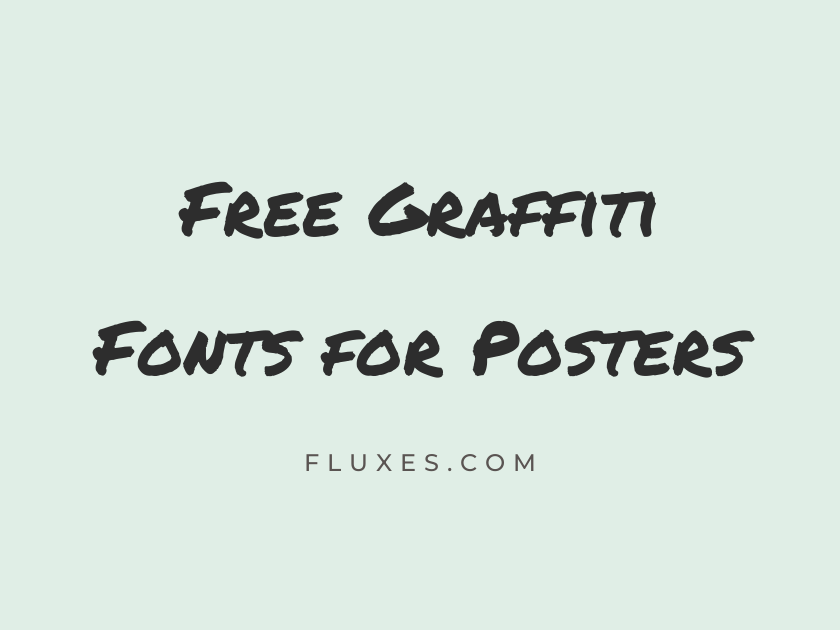
54 Best Free Graffiti Fonts for Posters
Graffiti has its own visual language: dripping spray paint, thick marker tags, chunky bubble letters, stenciled warnings, and the occasional gothic tag lifted straight off a train car. Translating that energy into a usable poster font is not simple, since most graffiti lettering is hand-cut or freehand rather than typeset. Fortunately, Google Fonts has built up a genuinely deep bench of free graffiti fonts, spray paint fonts, and urban display faces that capture that street art attitude while staying legible enough for headlines, flyers, and gig posters.
What follows is a wide sweep of options, from authentic marker scrawls to stenciled warehouse type to neon-tube signage, so you can match the exact flavor of urban grit your poster needs.
1. Permanent Marker
Tag the wall before sunrise
This is the font most people picture first when they hear “graffiti font,” and for good reason. Its thick, slightly uneven marker strokes look genuinely hand-drawn rather than digitally faked, which makes it a dependable workhorse for flyers, sale signs, and anything that needs a scrawled, urgent voice.
It holds up surprisingly well at small sizes for a marker face, though it shines biggest as a headline.
2. Rock Salt
Fresh paint drips down the alley
Scratchy and uneven in a way that feels like it was drawn with a dying ballpoint on a brick wall, Rock Salt brings a rawer, less polished energy than Permanent Marker. It works best in short bursts, a word or two, since longer lines start to feel cramped.
3. Nothing You Could Do
Scrawled fast under a flickering streetlight
Nothing You Could Do
Loose and looping, this one reads like a tag scrawled in a hurry. Save it for accent text or a signature-style flourish rather than body copy, where its irregular baseline can get tiring to read.
4. Covered By Your Grace
Handwritten tags cover the underpass wall
Covered By Your Grace
Softer and rounder than most tag fonts, Covered By Your Grace feels less like spray paint and more like a paint marker on cardboard. It pairs nicely with a heavier display font for contrast.
5. Sriracha
Bold marker strokes claim the corner
Thick, confident, and slightly playful, Sriracha reads like a marker tag with good handwriting. It is one of the more legible options on this list, which makes it useful for posters that need graffiti flavor without sacrificing readability.
6. Kaushan Script
Signature style on a subway car
Kaushan Script leans closer to brush lettering than street tagging, but its confident, swooping strokes give it a signature-tag quality that works well for event branding with a graffiti edge. Use it for a name, date, or short phrase rather than a full sentence.
7. Yellowtail
Loops and swashes across brick walls
Smooth, connected, and full of movement, Yellowtail feels more like a tagger’s autograph than a spray-can piece. It reads best in a single accent line, layered over a bolder background font.
8. Bangers
POW! Street art hits the block
Straight out of comic-book lettering, Bangers brings the loud, chunky, slightly rough-edged energy of a stenciled street mural. It has become a go-to for punchy show posters and event flyers that want an urban, hand-cut feel without leaning on a script.
9. Boogaloo
Bounce back to the block party
Boogaloo’s rounded, slightly wobbly letterforms give it a retro block-party charm. It sits comfortably alongside graffiti-inspired designs that want warmth rather than aggression.
10. Luckiest Guy
Bubble letters bloom on the overpass
Fat, rounded, and instantly recognizable, Luckiest Guy is the closest thing on Google Fonts to classic graffiti bubble lettering. It is bold enough to anchor a poster title on its own and holds up well printed large.
11. Titan One
Chunky letters own the skate park
Titan One takes the bubble-letter idea and pushes it even chunkier and more inflated, almost like a piece painted with a fat cap. It reads loud from across a room, which makes it excellent for skate, sneaker, or street culture posters.
12. Modak
Puffy paint fills the whole mural
Originally cut for Devanagari-inspired display work, Modak’s puffed, glossy letterforms translate surprisingly well into graffiti-adjacent poster design. Its rounded weight gives it a candy-coated, spray-filled look that pairs nicely with bright, saturated color schemes.
13. Shrikhand
Thick brush ink for loud posters
Shrikhand is dense, inky, and a little wild at the edges, giving it a hand-painted sign quality. It works best as a short, shouty headline rather than anything requiring fine detail.
14. Passion One
Big rounded type for concert flyers
Rounded and heavy without tipping into cartoonish, Passion One is a safe bet when a poster needs graffiti-adjacent boldness but still has to feel like a real event flyer. It is legible at a distance and holds its shape even when printed on rough paper stock.
15. Chewy
Playful bubbles bounce off the wall
Chewy is friendlier and softer than most bubble-letter graffiti fonts, making it a good fit for community mural events, youth programs, or block party flyers that want a graffiti wink without the edge.
16. Rammetto One
Inflated letters for block party flyers
Rammetto One’s rounded, slightly puffed strokes give it a balloon-letter feel reminiscent of old-school bubble graffiti pieces. It works best set large and short.
17. Kablammo
Bold shout for underground show posters
Kablammo
A variable font with a springy, elastic quality, Kablammo can be dialed from a mellow bounce to a full shout depending on the axis settings. It suits gig posters and zine covers that want a comic-graffiti hybrid look.
18. Bigshot One
Three dimensional letters pop off walls
Bigshot One
Bigshot One layers a dimensional shadow onto chunky letterforms, mimicking the extruded, 3D-piece look graffiti writers spend hours building with cans. It is a strong choice for a title that needs to look like it is physically lifting off the wall.
19. Ranchers
Weathered type for warehouse show flyers
Ranchers
Ranchers has a distressed, slightly worn edge that reads like paint applied to a rough surface. It suits warehouse party flyers, DIY show posters, and anything that wants a lived-in, urban texture.
20. Alfa Slab One
Heavy type stamped on cardboard signs
Not a graffiti font in the traditional sense, but its extreme slab weight gives it the stamped, industrial heaviness of spray-stenciled crate lettering. It works well as a base font paired with a looser tag script for contrast.
21. Stardos Stencil
Cut stencil letters spray onto concrete
Stardos Stencil has rounder, friendlier stencil cuts than most military-style alternatives, giving it a softer street-art quality. It reads clearly even at moderate sizes, which is not always true of stencil faces.
22. Wallpoet
Stamped letters mark the freight yard
Condensed, blocky, and stamped-looking, Wallpoet was practically built for the freight-yard, stencil-tag aesthetic. It is narrow enough to fit long words into tight poster columns without losing its industrial attitude.
23. Barrio
Rough lettering for the taco truck mural
Barrio
Barrio was drawn with the rough, hand-painted signage of taco trucks and neighborhood storefronts in mind, and that same distressed, slightly uneven character reads as authentic street art rather than a digital imitation of it.
It has real personality in short bursts, a title or a single word, but starts to feel busy in longer lines. Pair it with a plain sans for body text to let it stay the star of the poster.
24. Rock 3D
Inflated block letters rise off brick
Rock 3D
Rock 3D bakes a dimensional shadow directly into the letterforms, giving flat digital type the illusion of a spray-painted piece with real depth. It is a fun, low-effort way to fake the extruded look of a serious graffiti burner.
• Language support: Latin, Japanese
25. Bungee
Neon signage lights the street corner
Bungee was designed around the bold, condensed lettering found on urban street signage, and it carries that same confident, stacked-block presence. It anchors an entire poster on its own, which makes it a natural pick for event titles.
Because the Bungee family includes several structural variants, it is worth treating as a toolkit rather than a single font.
26. Bungee Shade
Layered shadows deepen the city sign
This variant adds a long, dropped shadow to the base Bungee letterforms, creating the illusion of raised, dimensional signage. It layers well over a plain Bungee headline for a two-tone poster effect.
27. Bungee Inline
Outline letters glow above the diner
A slimmer, inlined take on the same family, this one reads like neon tubing traced against a dark background. It suits nightlife and music posters that want a lit-up, urban marquee feel.
28. Bungee Outline
Hollow letters trace the skyline sign
Bungee Outline
The hollow version strips the letterforms down to just their edges, useful as an overlay treatment on top of a photo or textured background without blocking it out entirely.
29. Bungee Hairline
Thin neon traces the rooftop sign
Bungee Hairline
The lightest member of the family, Bungee Hairline swaps bulk for delicate linework while keeping the same condensed urban structure. It works best set large, since its thin strokes can vanish at small sizes.
30. UnifrakturCook
Old English tags mark the underpass
UnifrakturCook
Blackletter lettering has been part of graffiti culture for decades, from train tags to tattoo flash, and UnifrakturCook delivers a genuinely gothic, hand-cut version of that old English style. It gives a poster instant street credibility when the brief calls for that specific tagging tradition.
It is a display face through and through; reserve it for a title or a single name rather than any kind of running text.
• Styles: 1 weight (Bold)
31. Creepster
Dripping letters ooze down the poster
Creepster’s melting, drippy strokes look like paint that has not quite dried, which makes it a natural fit for horror movie posters, Halloween flyers, or any street-art piece that wants a grimy, unsettling edge.
32. Nosifer
Blood red letters drip off brick
Nosifer
Even more aggressive than Creepster, Nosifer’s jagged, dripping forms lean hard into horror territory. Use it sparingly, as a title accent rather than anything readable in bulk, since legibility takes a back seat to shock value here.
33. Eater
Jagged letters gnaw at the wall
Eater
Rough, gnawed-looking edges give Eater a distressed, almost decayed quality that suits gritty, underground event posters. It is another one best reserved for short, high-impact headlines.
34. Butcherman
Rough hacked letters slash the poster
Slashed and hacked-looking, Butcherman brings a raw, violent energy that fits horror, punk, and underground music posters particularly well. Its rough texture reads better in print than on a bright screen.
35. Londrina Sketch
Sketchy hand drawn marks tag the fence
Londrina Sketch
The Londrina family was built around bold, hand-drawn display lettering, and the Sketch cut adds a loose, scribbled texture on top of its chunky base letterforms. It looks genuinely marker-drawn rather than digitally faked.
36. Londrina Outline
Outlined tags trace the chain link fence
Londrina Outline
Stripping the same bold structure down to an outline, this cut is useful layered over a photo background or combined with the solid weight for a two-color poster effect.
37. Londrina Shadow
Shadowed letters pop off the billboard
Londrina Shadow
Adding a hard drop shadow to the family’s chunky base, Londrina Shadow gives flat lettering a sense of depth that reads well on billboard-style posters viewed from a distance.
38. Londrina Solid
Solid bold caps for the mural title
Londrina Solid
The plain, solid cut of the family is the most versatile of the four, dense and confident enough to anchor a headline on its own. Together, the Londrina variants make an easy toolkit for building layered, graffiti-inspired poster titles without hunting for four separate typefaces.
• Styles: 4 weights (Thin to Black)
39. Fascinate
Groovy letters spin off the boombox
Fascinate has a retro, psychedelic curl to its letterforms that feels more 1970s block party than modern spray tag, but that groovy edge works well for throwback street culture and hip-hop heritage posters.
40. Fascinate Inline
Retro loops circle the block party
Fascinate Inline
The inlined companion to Fascinate trades solid weight for a hollow, striped look, useful as a lighter accent alongside the bolder base cut.
41. Mystery Quest
Spooky scrawl haunts the alley wall
Mystery Quest
Hand-drawn and slightly crooked, Mystery Quest suits posters with a spooky or offbeat street-art tone, such as haunted house flyers or novelty event signage.
42. Irish Grover
Rowdy letters shout from the flyer
Irish Grover
Bouncy, uneven, and a little rowdy, Irish Grover brings a hand-scrawled energy that suits loud, chaotic show flyers better than anything polished or corporate.
43. Frijole
Blocky letters stamp the crate label
Frijole
Frijole’s thick, stubby letterforms have a stamped, hand-carved feel reminiscent of wood-block street signage. It reads best in short, punchy words.
44. Monoton
Neon tubes spell out the club name
Built to look like glowing neon tubing, Monoton is not a spray-paint font at all, but it captures a specific slice of urban nightlife typography that pairs beautifully with graffiti-textured backgrounds on club and music posters.
45. Rubik Wet Paint
Wet paint drips fresh off the wall
Rubik Wet Paint
Part of the Rubik display family built specifically around textured, illustrative styles, Wet Paint mimics glossy, still-dripping spray paint with real convincing weight. It is one of the most literal spray paint fonts available for free.
• Language support: Latin, Latin Extended, Cyrillic, Cyrillic Extended, Hebrew
46. Rubik Spray Paint
Spray can hiss echoes down the alley
Rubik Spray Paint
Where Wet Paint looks glossy and fresh, this cut leans into the grainy, slightly uneven texture of an actual can held too far from the wall. It is a direct, no-nonsense choice whenever a poster needs to read as literally spray-painted.
• Language support: Latin, Latin Extended, Cyrillic, Cyrillic Extended, Hebrew
47. Rubik Dirt
Grimy letters coat the subway tile
Rubik Dirt
Rubik Dirt adds a grimy, speckled texture to bold letterforms, evoking grime built up on subway tile or a train car exterior. It sets an urban, weathered tone without needing extra photo textures layered behind it.
• Language support: Latin, Latin Extended, Cyrillic, Cyrillic Extended, Hebrew
48. Rubik Marker Hatch
Crosshatched marker fills the cardboard sign
Rubik Marker Hatch
Cross-hatched shading inside each letter gives Rubik Marker Hatch the look of a marker sketch filled in by hand, which suits zine covers and DIY flyer design well.
• Language support: Latin, Latin Extended, Cyrillic, Cyrillic Extended, Hebrew
49. Rubik Microbe
Speckled texture spreads across the poster
Rubik Microbe
Its speckled, organic texture reads a bit like spray paint caught mid-spatter. It is a good option when a poster wants texture without going fully into drip or grime territory.
• Language support: Latin, Latin Extended, Cyrillic, Cyrillic Extended, Hebrew
50. Rubik Distressed
Cracked paint peels off the billboard
Rubik Distressed
Cracked, chipped edges give Rubik Distressed the look of paint that has been baking on a billboard for years. It suits vintage-styled street art reproductions particularly well.
• Language support: Latin, Latin Extended, Cyrillic, Cyrillic Extended, Hebrew
51. Rubik Bubbles
Puffy bubble letters float above the skatepark
Rubik Bubbles
Rounded and inflated, Rubik Bubbles delivers the classic bubble-graffiti look with more roundness and softness than Titan One or Luckiest Guy, useful when a poster wants a friendlier, more youthful street style.
• Language support: Latin, Latin Extended, Cyrillic, Cyrillic Extended, Hebrew
52. Rubik Glitch
Static letters flicker on the flyer
Rubik Glitch
Less traditional spray paint and more digital decay, Rubik Glitch fractures its letterforms as though the signal is cutting out. It is an interesting fit for posters blending street art with a more contemporary, tech-glitch aesthetic.
• Language support: Latin, Latin Extended, Cyrillic, Cyrillic Extended, Hebrew
53. Rubik Burned
Scorched letters smolder on the poster
Rubik Burned
Charred, singed edges give this cut a scorched, torch-marked look, well suited to gritty, high-contrast event posters that want to feel a little dangerous.
• Language support: Latin, Latin Extended, Cyrillic, Cyrillic Extended, Hebrew
54. Rubik Vinyl
Glossy sticker letters slap the lamppost
Rubik Vinyl
Glossy and bold, Rubik Vinyl reads like a fat sticker slapped on a lamppost rather than a spray tag, which makes it a fun option for skate, sticker-culture, and street fashion posters.
• Language support: Latin, Latin Extended, Cyrillic, Cyrillic Extended, Hebrew
Pairing and pattern tips
Most graffiti and spray paint fonts work best as a single bold headline, not as body copy. Reserve them for the title and drop back to a clean sans for dates, venues, and fine print.
Layering two graffiti styles can look busy fast. Pick one loud tag or spray font as the star, then let everything else in the layout stay simple.
Texture-heavy fonts like the Rubik paint variants or the horror-styled options can turn muddy at small sizes. Test your poster at actual print size before finalizing.
For a two-tone piece treatment, try combining a solid Bungee or Londrina weight with its own inline or outline sibling for a shadowed, dimensional title.
With this many free graffiti fonts to pull from, there is no need to force a single overused choice onto every project. Match the texture, whether that is dripping spray paint, a hard stencil cut, or an old-school blackletter tag, to the specific mood your poster is chasing, and the type will do a lot of the storytelling on its own.